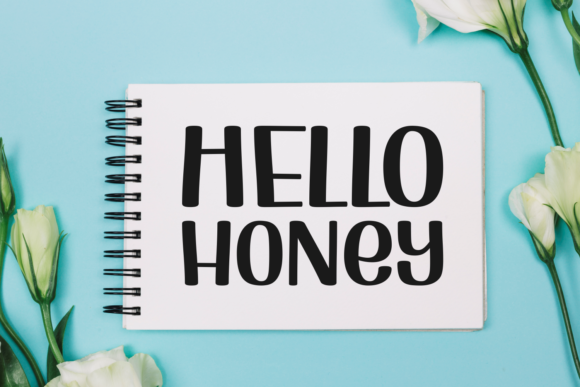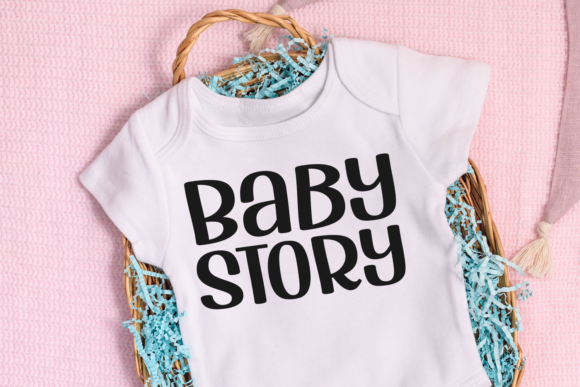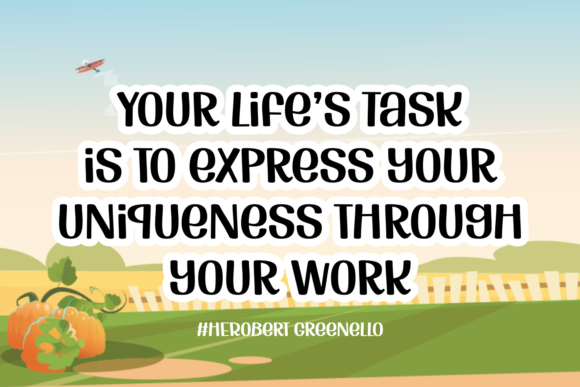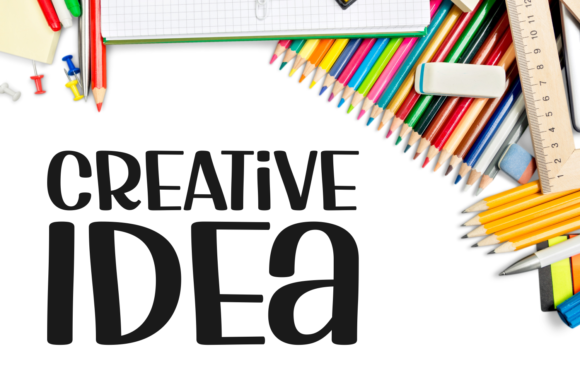
Introduction to Happiness Farmhouse Font Font
Fonts play a crucial role in design, and the Happiness Farmhouse Font font is a typeface that brings both character and versatility to any project. Whether you’re working on a branding project, a website, or a print design, the Happiness Farmhouse Font font offers a unique style that can elevate your work.
Happiness Farmhouse is one lovely handwritten font.
This handwritten typeface is perfect for quotes, school projects, t-shirts, and art prints and brings other creative ideas to life .
Key Features of Happiness Farmhouse Font Font
Why Choose Happiness Farmhouse Font Font?
The Happiness Farmhouse Font font is more than just a typeface – it’s a design tool that helps you communicate your message with style and clarity. Its unique character set and versatile design make it suitable for a wide range of applications, from elegant invitations to bold headlines.
With its carefully crafted letterforms and balanced proportions, the Happiness Farmhouse Font font ensures readability and visual appeal across all mediums.
What makes Happiness Farmhouse Font font special?
The Happiness Farmhouse Font font stands out with its unique design, exceptional readability, and versatility across various design applications.